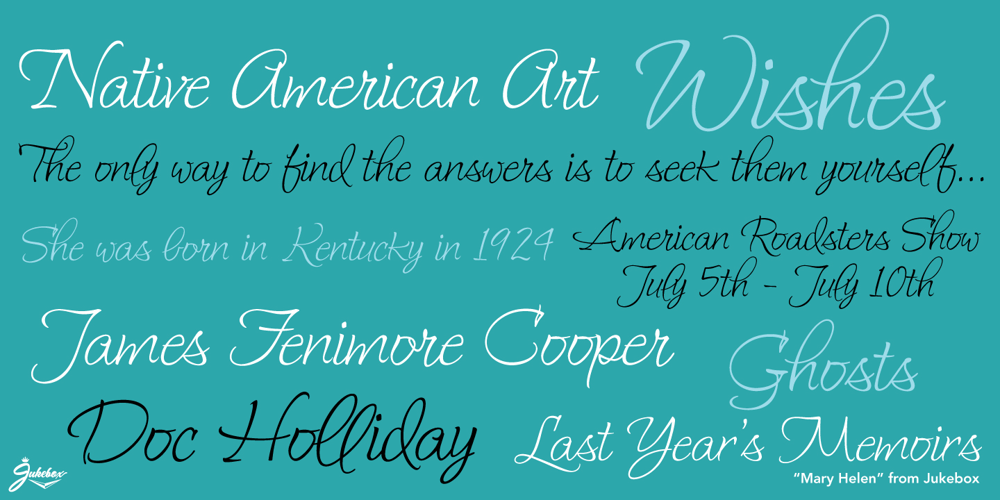
Mary Helen JF Font Family was designed by Jason Anthony Walcott and published by Jukebox Collection. Mary Helen JF contains 1 styles and family package options. Mary Helen from Jukebox is a warm and feminine script font that is bright and happy. Named after the designer’s paternal grandmother, the typeface lends a sense of fun and joy to any design. Perfect for a variety of functions, Mary Helen will provide that touch of feminine grace, like a handwritten note from a friend or loved one. The font contains several alternate letters and a couple of ending flourishes as well, for variety. Jukebox fonts are available in OpenType format and downloadable packages contain both .otf and .ttf versions of the font. They are compatible on both Mac and Windows. All fonts contain basic OpenType features as well as support for Latin-based and most Eastern European languages.